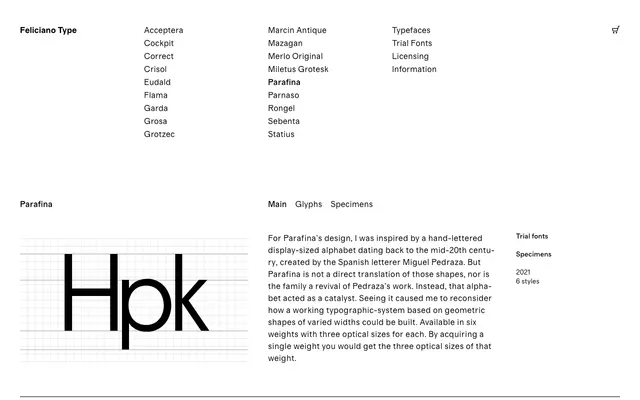
Parafina
Feliciano Type · 2021
A geometric display family in six weights with three optical sizes each, inspired by a mid-20th century hand-lettered alphabet by Spanish letterer Miguel Pedraza.
Designed by Feliciano Type and released in 2021, Parafina draws on a hand-lettered display alphabet by the Spanish letterer Miguel Pedraza without being a direct revival. The catalyst was Pedraza's work prompting a reconsideration of how a typographic system built on geometric shapes of varied widths could function. Each of the six weights — Thin through Black — comes with three optical sizes, so purchasing a single weight yields all three size-specific cuts.
Parafina is a display typeface built on geometric shapes of varied widths, inspired by a mid-20th century hand-lettered alphabet. Its optical sizes and geometric construction place it firmly in the display category.